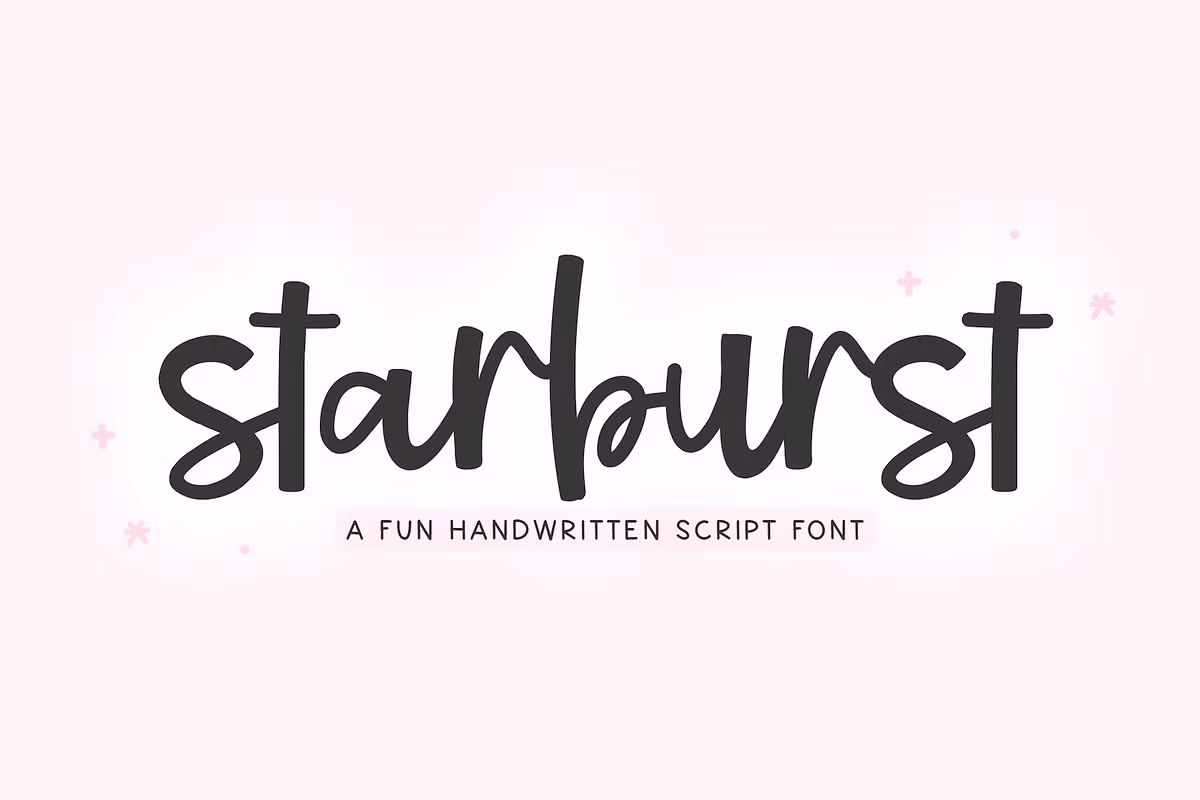
Starburst - A Bold Script Font Free Download is a dynamic and energetic typeface that commands attention with its thick strokes and confident curves. Perfect for logos, posters, streetwear designs, product packaging, and bold branding projects, Starburst delivers a modern retro vibe that’s full of personality.
This font combines the fluidity of hand-lettering with the strength of bold typography, making it ideal for headlines, promotional graphics, and creative merchandise. Its expressive style adds flair and impact to any design, helping your message stand out loud and clear.